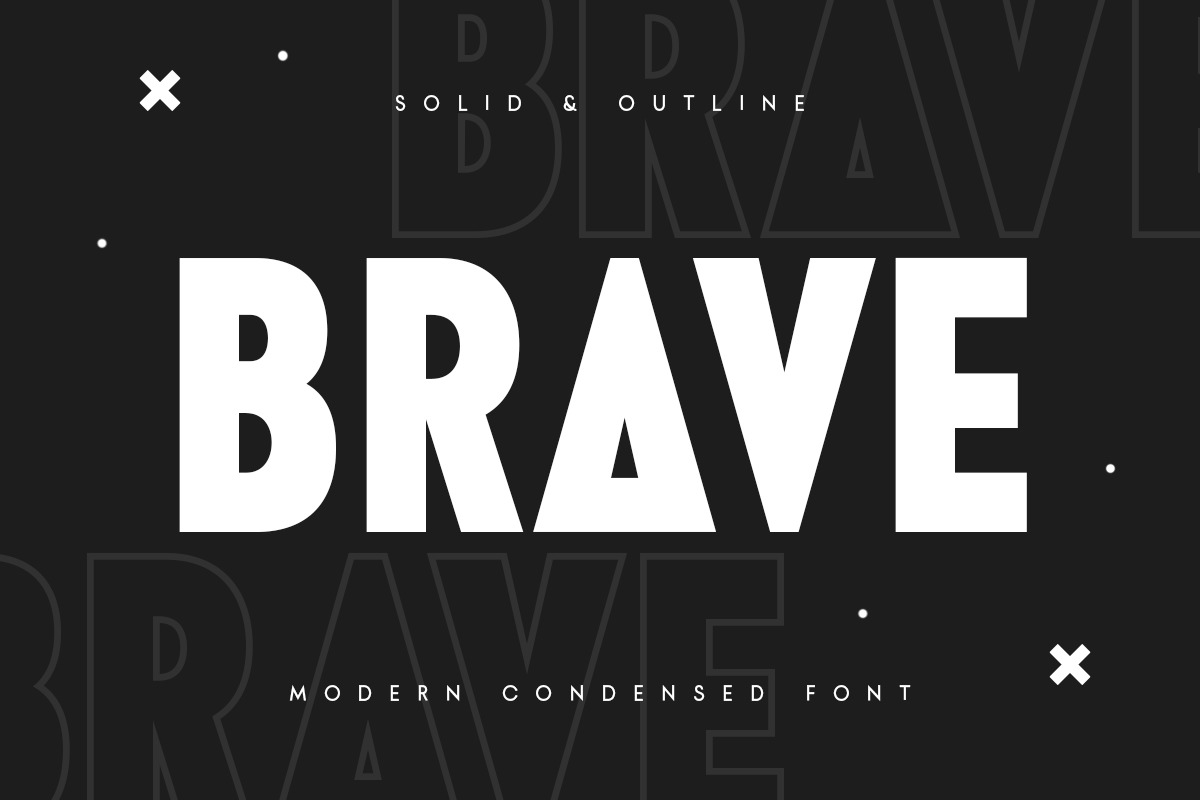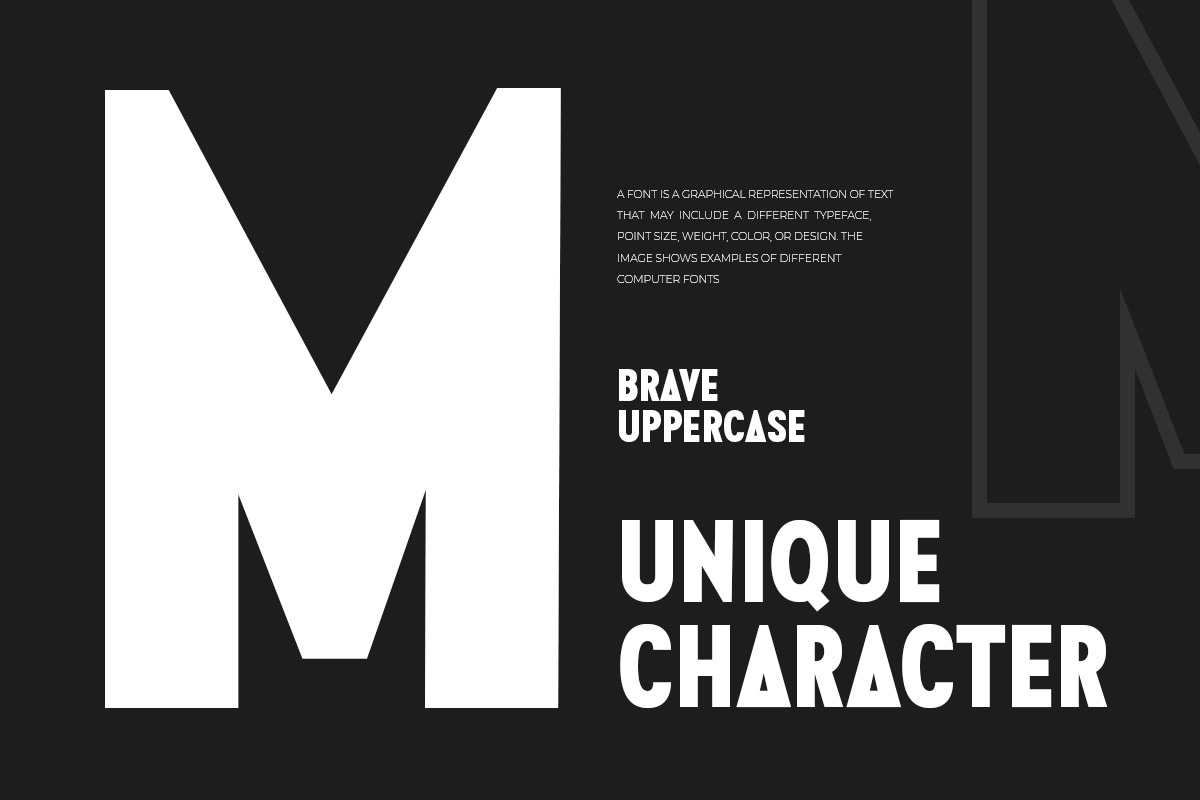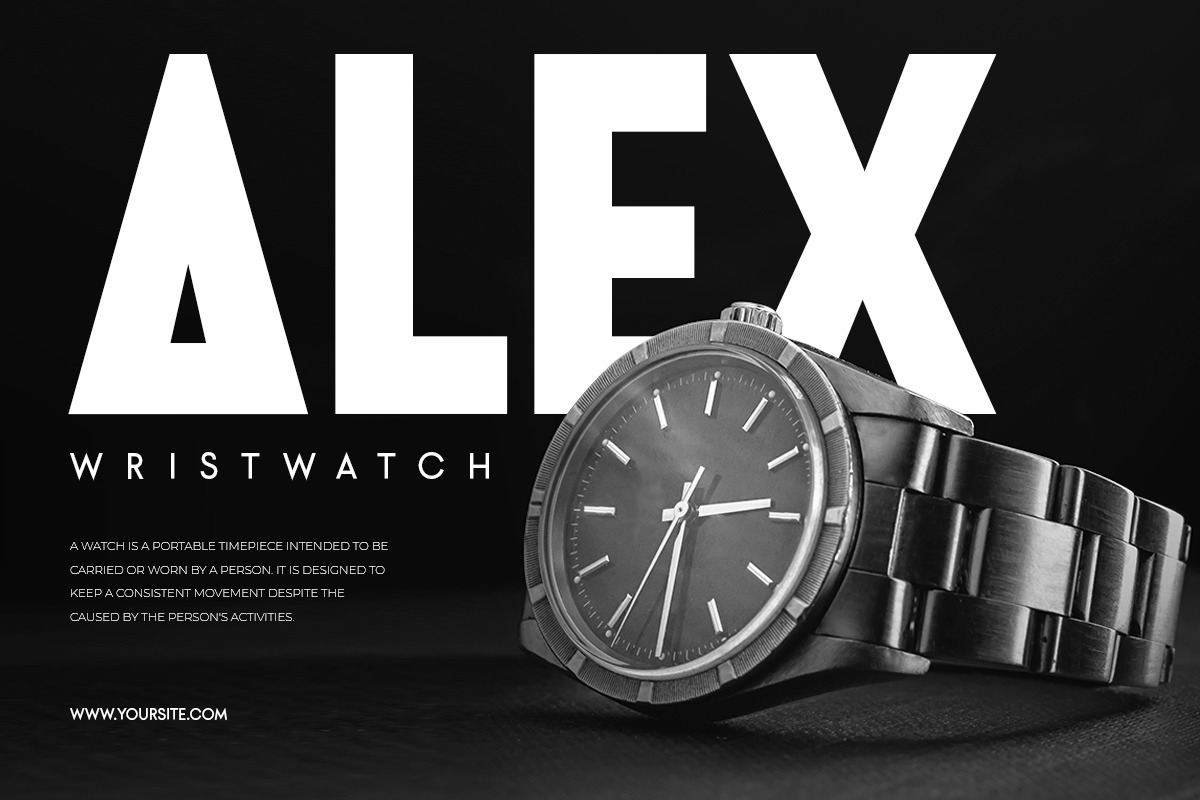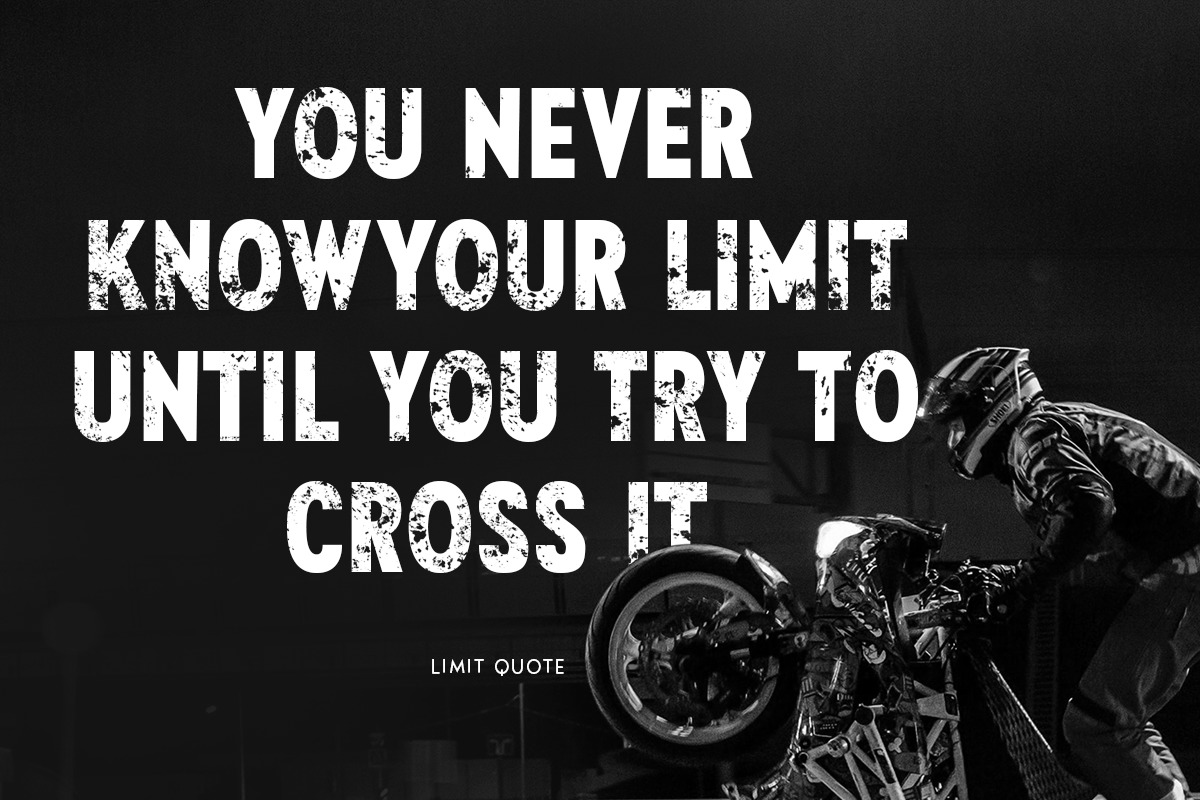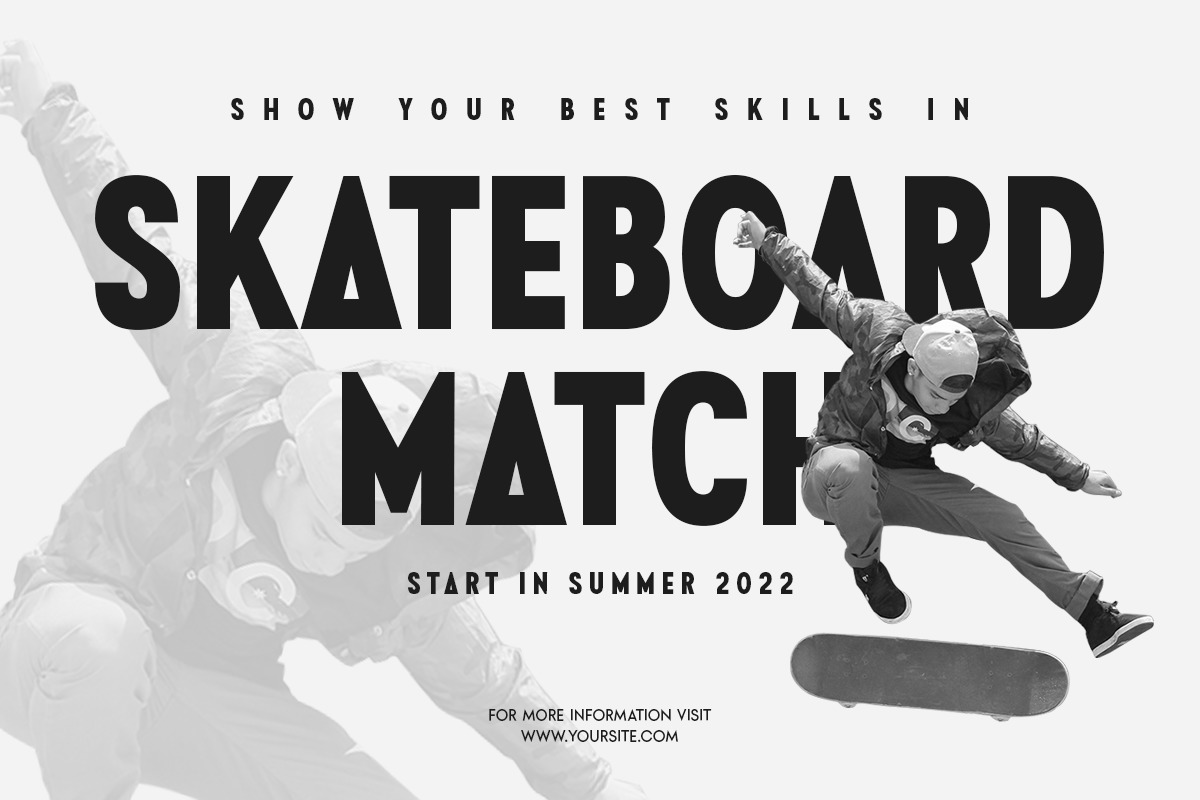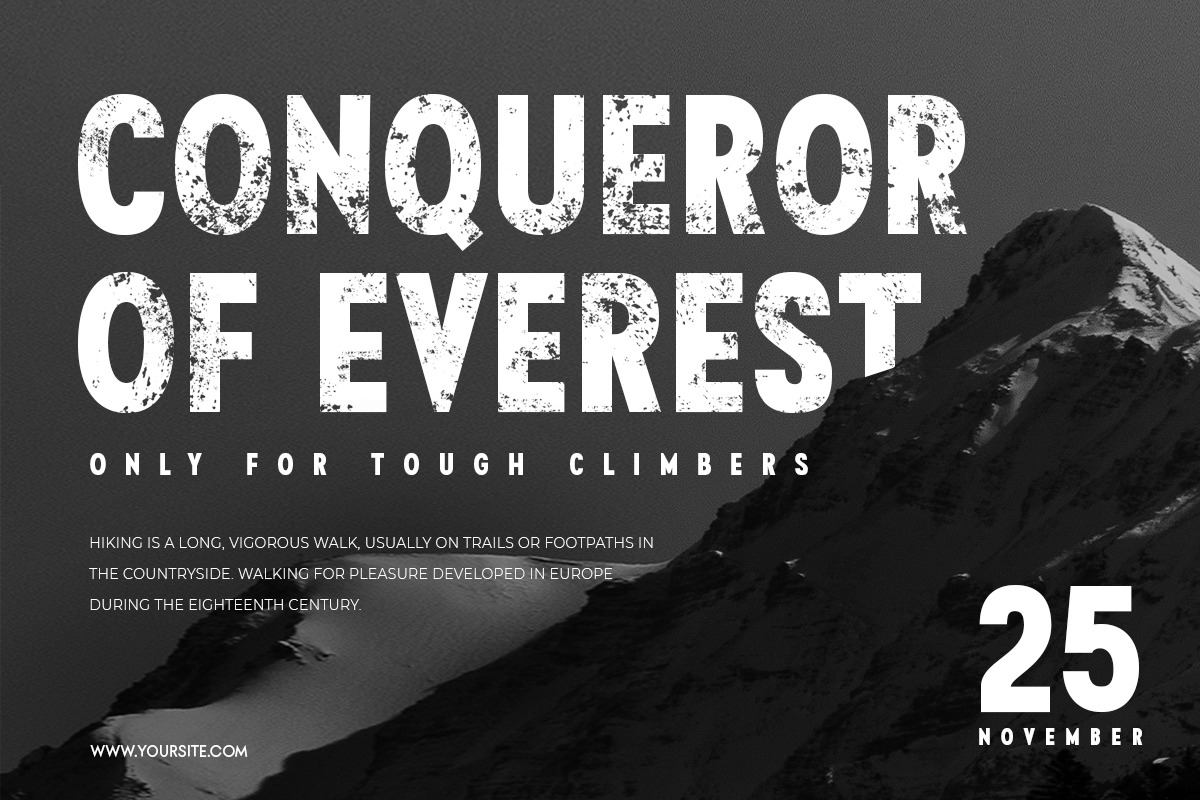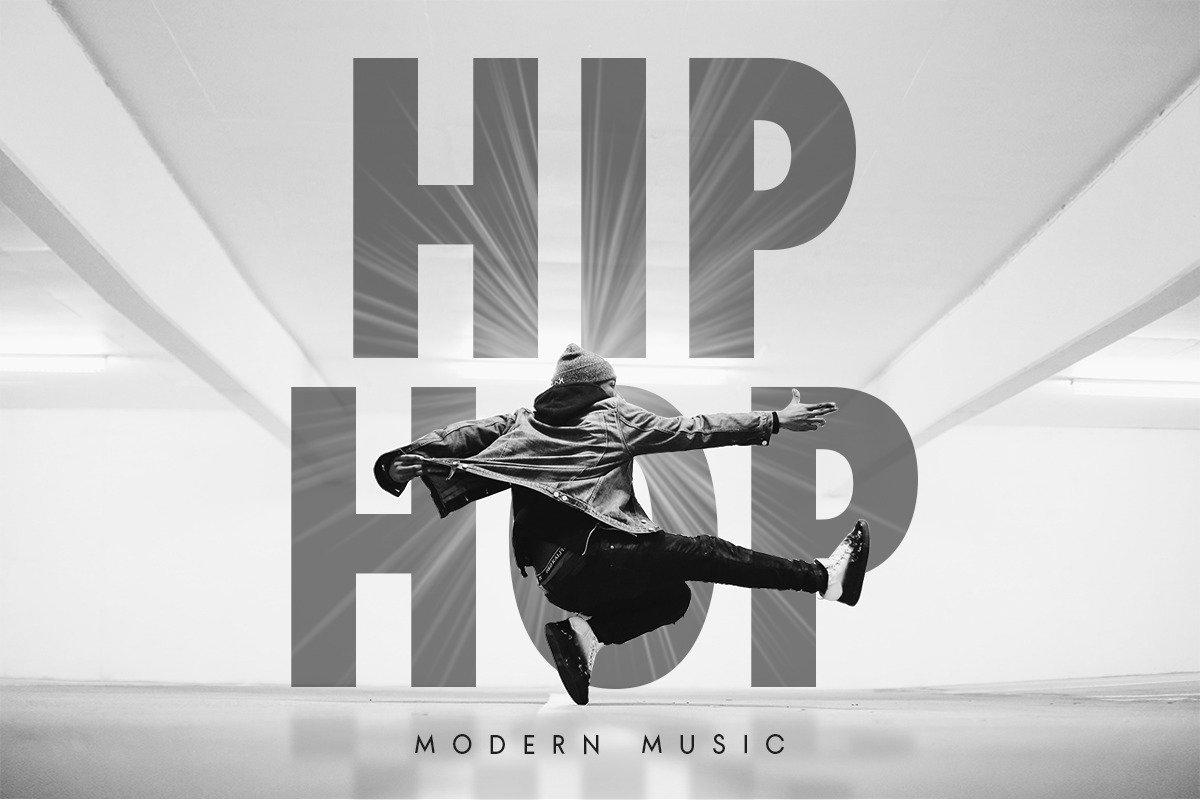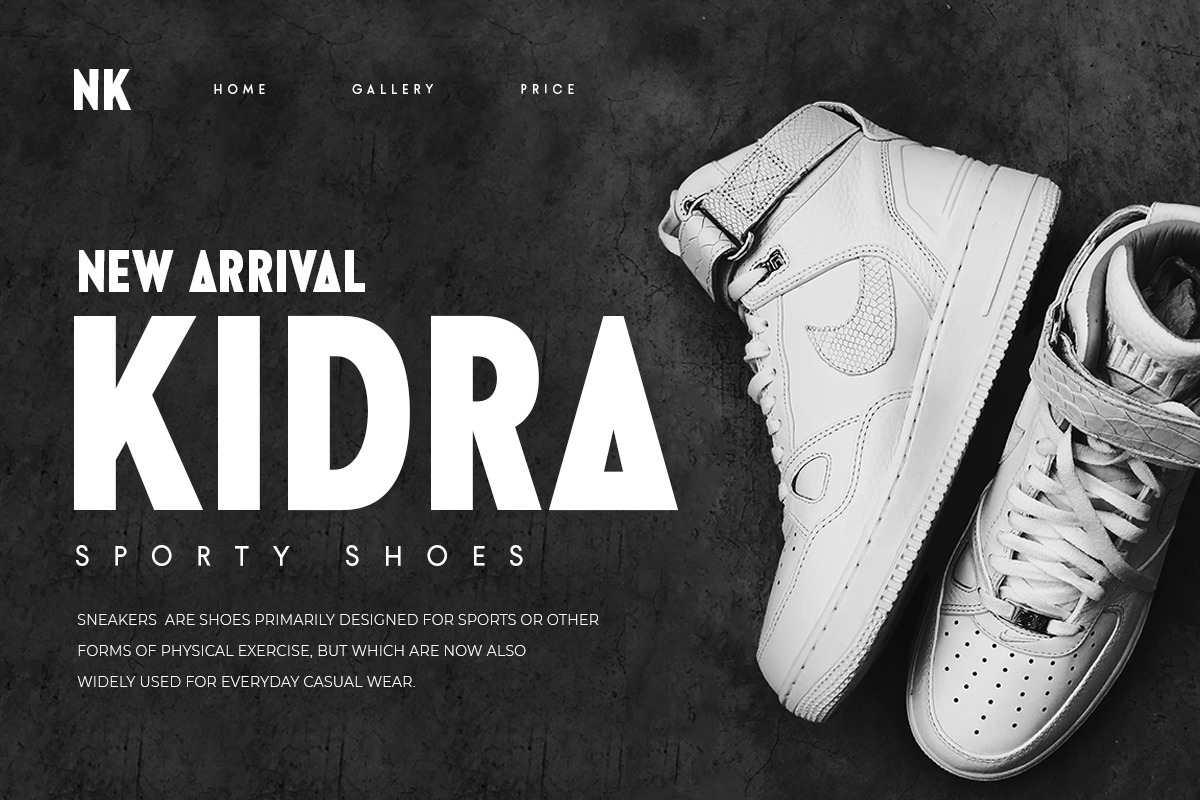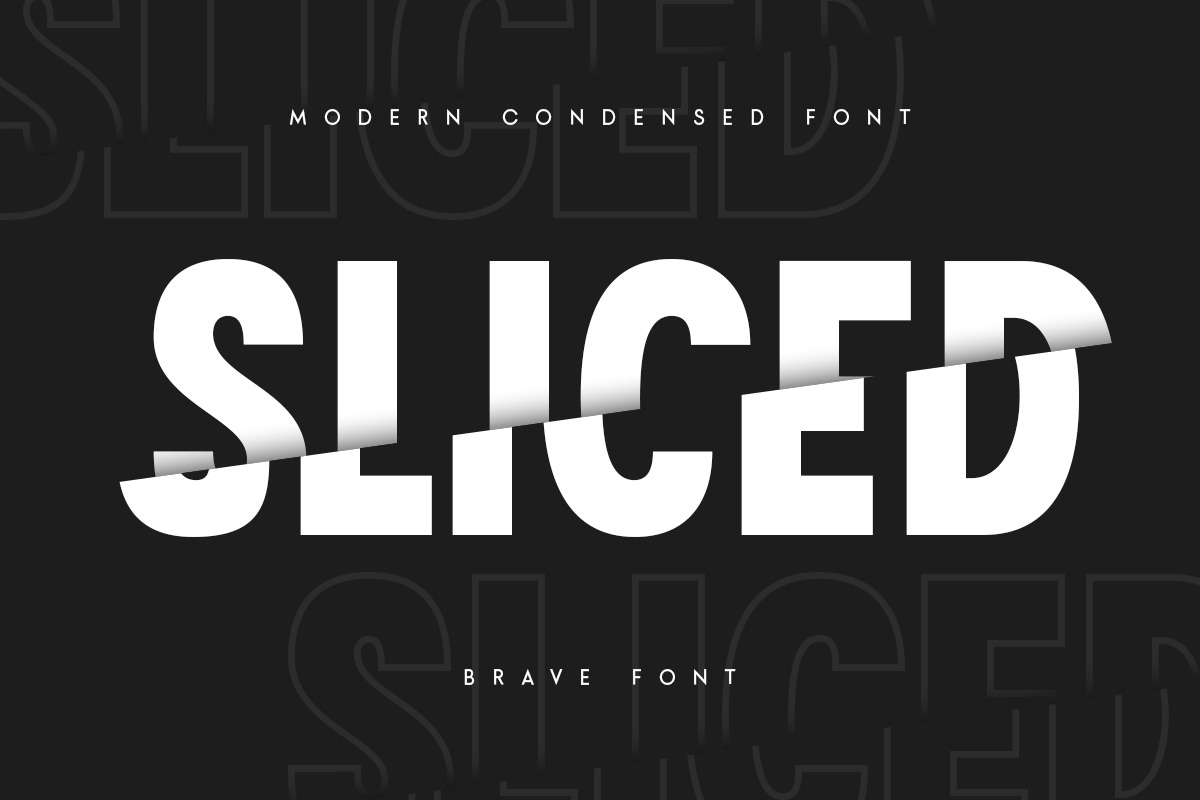
Brave - Modern Condensed Font
BRAVE is a Modern Sport font that created special for Branding, Title and more stand out typography needs, with extra alternative styles that make your design more memorable. It's so perfect to add your style and headline overview for sport, technology, actions, and fighting theme. And specially for this font, we crafted for bold action style and modern feels so enjoy to create any project that will show your main idea out.
BRAVE Modern Sport font ready with:
- 2 Font variation characters prepared to get creative alternatives
- Preview as a inspirations that you can do with BRAVE font
- Ready with All Uppercase characters